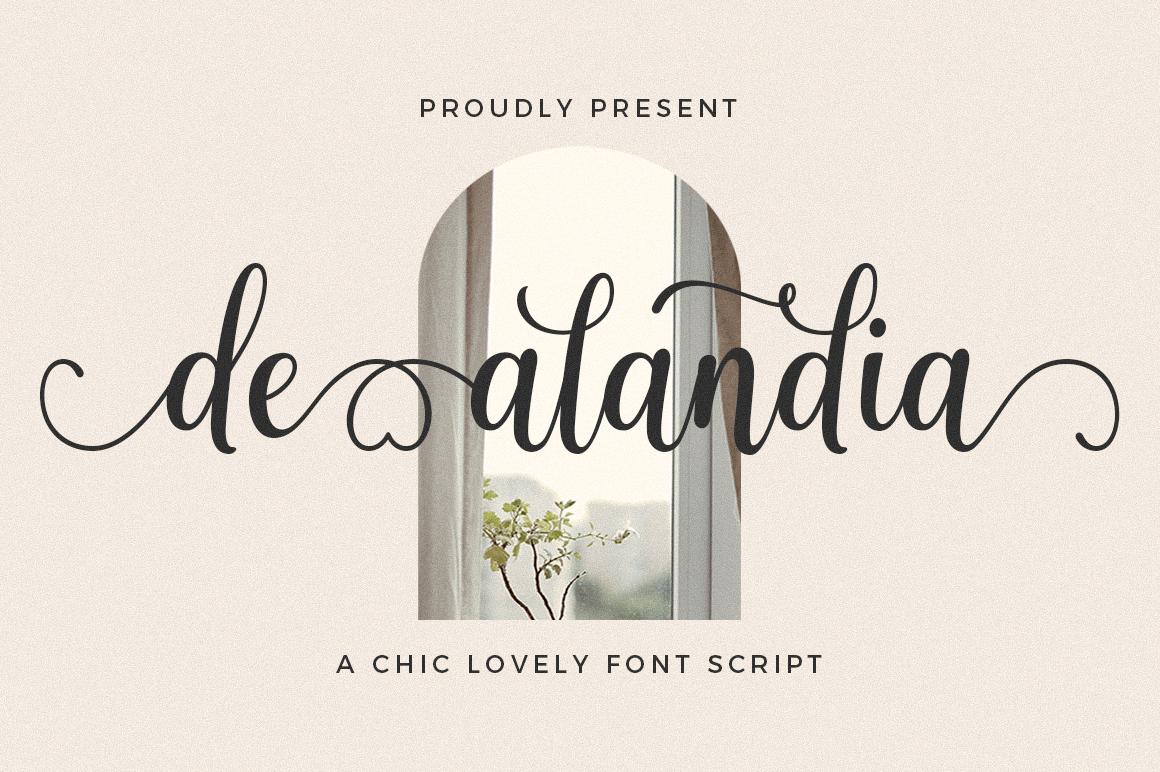
De Alandia Font Description
De Alandia is a refined, radiant and cursive script font. It has sweet and well balanced characters and as a result, it matches a wide pool of designs. De Alandia features a varying baseline, smooth lines, gorgeous glyphs and stunning alternates.